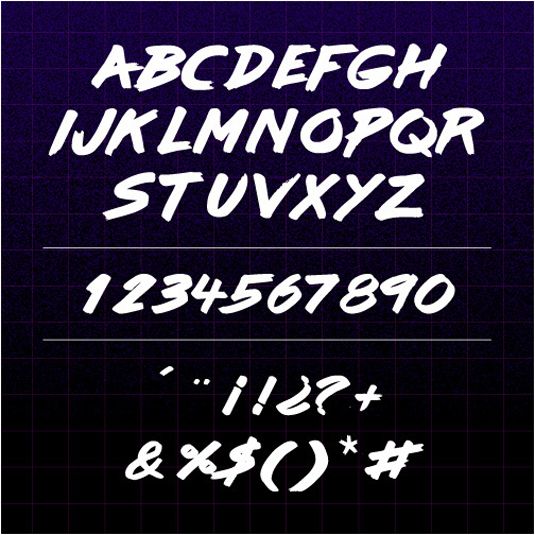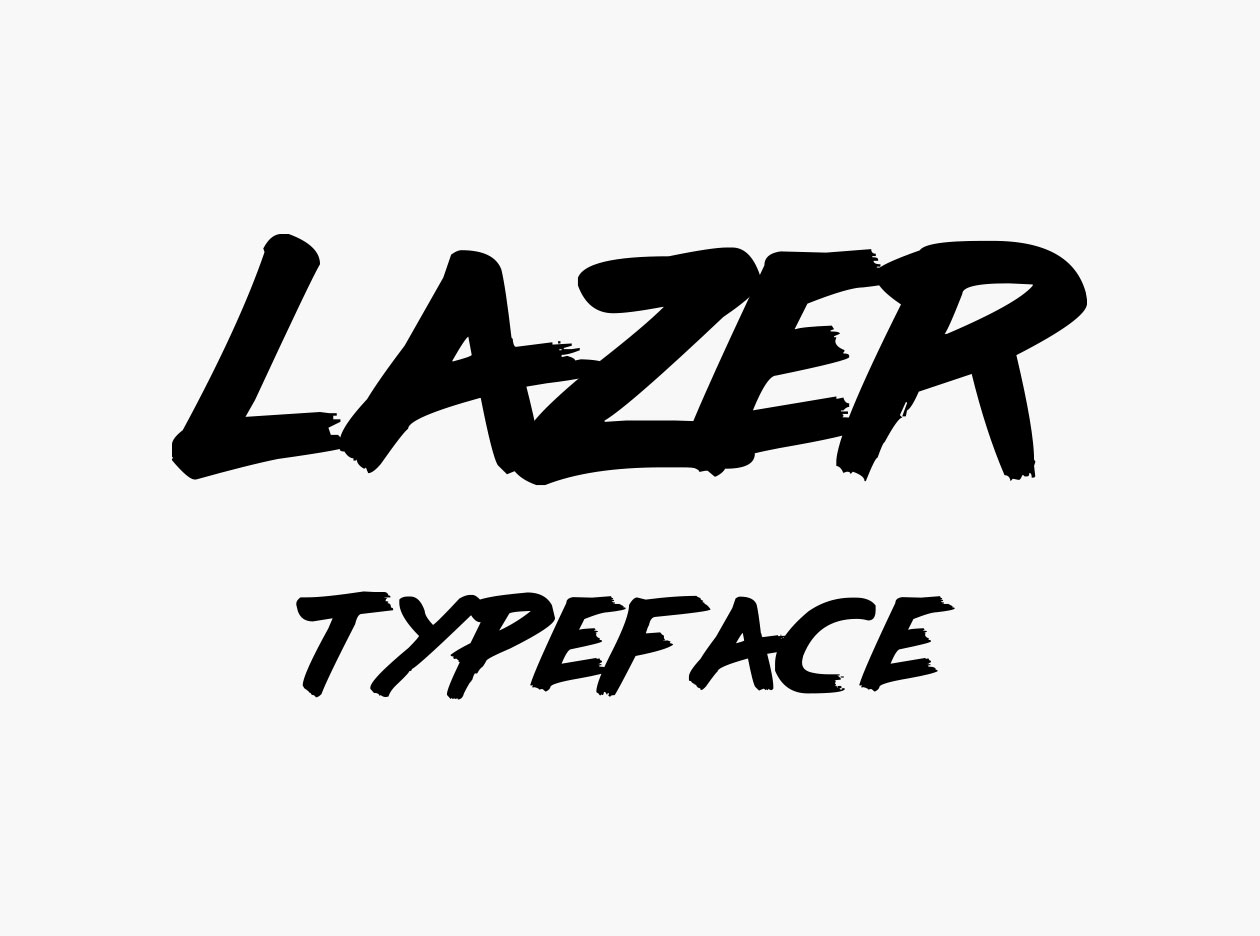
Lazer Free Brush Font
Lazer Free Brush Font is considered as the best text generator. This typeface is also known as the thunderstorm font and it is available in google fonts. A famous American content writer took the all proper for this stylish typeface. And he creates it for them makes the content material cloth appearance elegant.
He has taken the concept from which turns into launched because of the reality. On this technique, it in truth installation on the designs of the t-shirts printing. Lazer Free Brush Font Free Now that you could moreover be referred to as it the new version of the california font. On the identical time as you remember that now it has contained all of the historical elements with a selected facility.